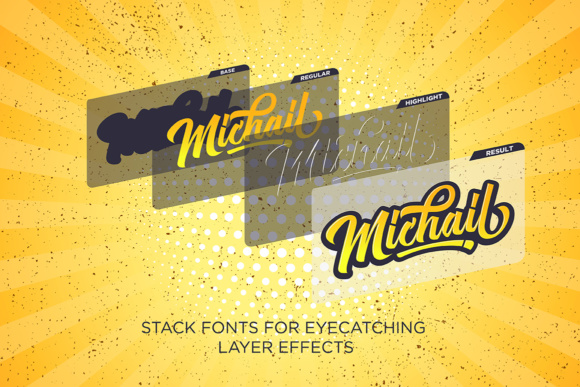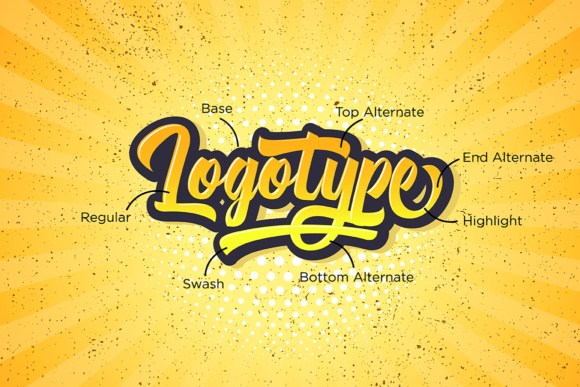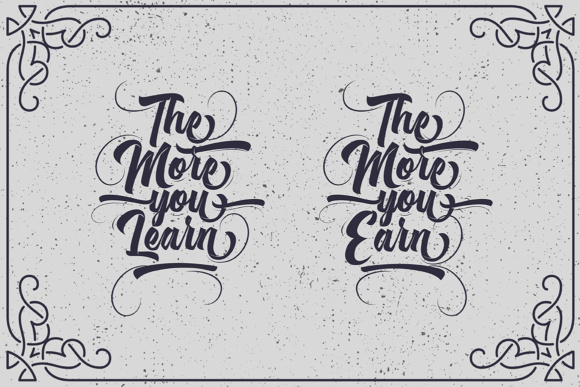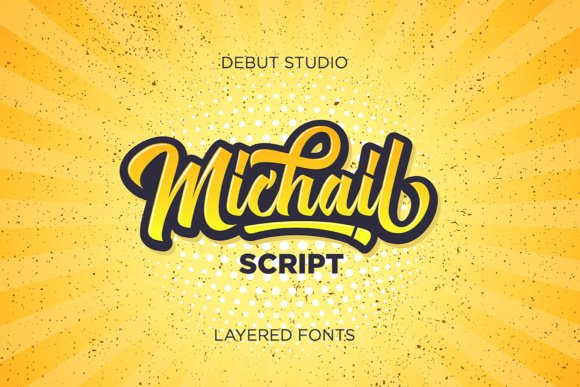
Introduction to Michail Script Font
The Michail is a striking family of six.
The fonts are layered so it can generate interesting designs It is suitable for young, passionate designs such as: logos, t-shirts, branding, and various other design purposes.